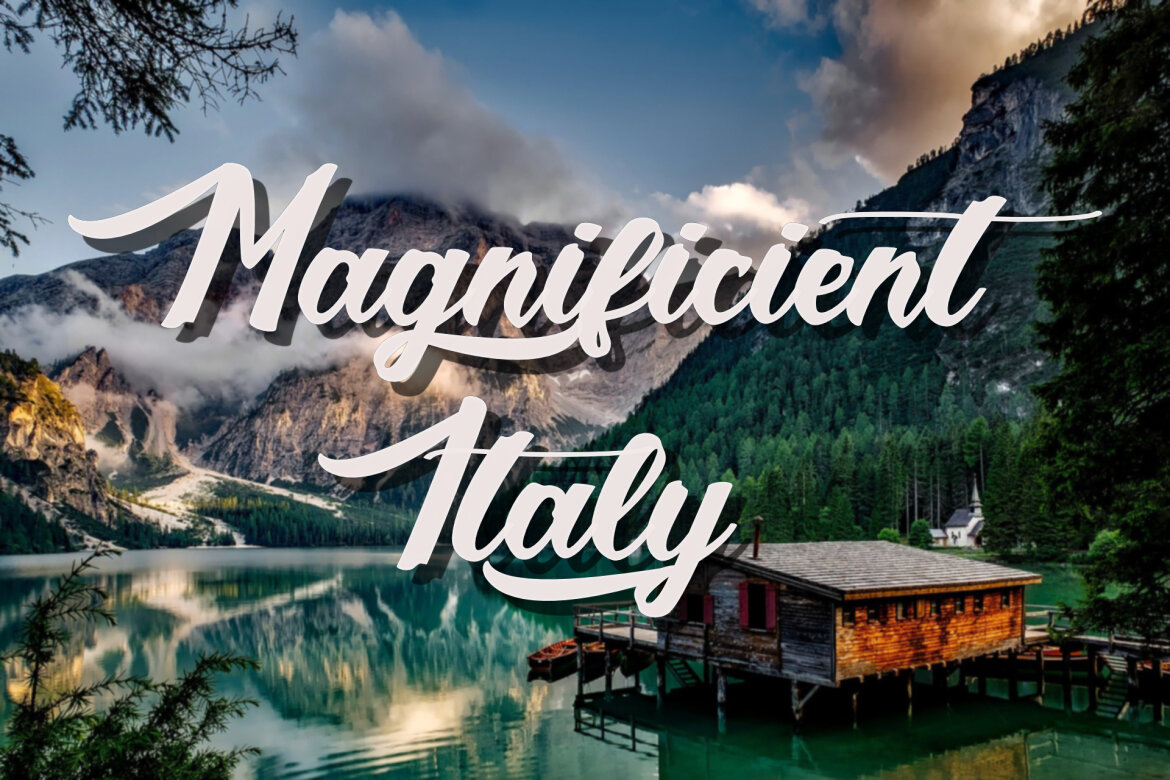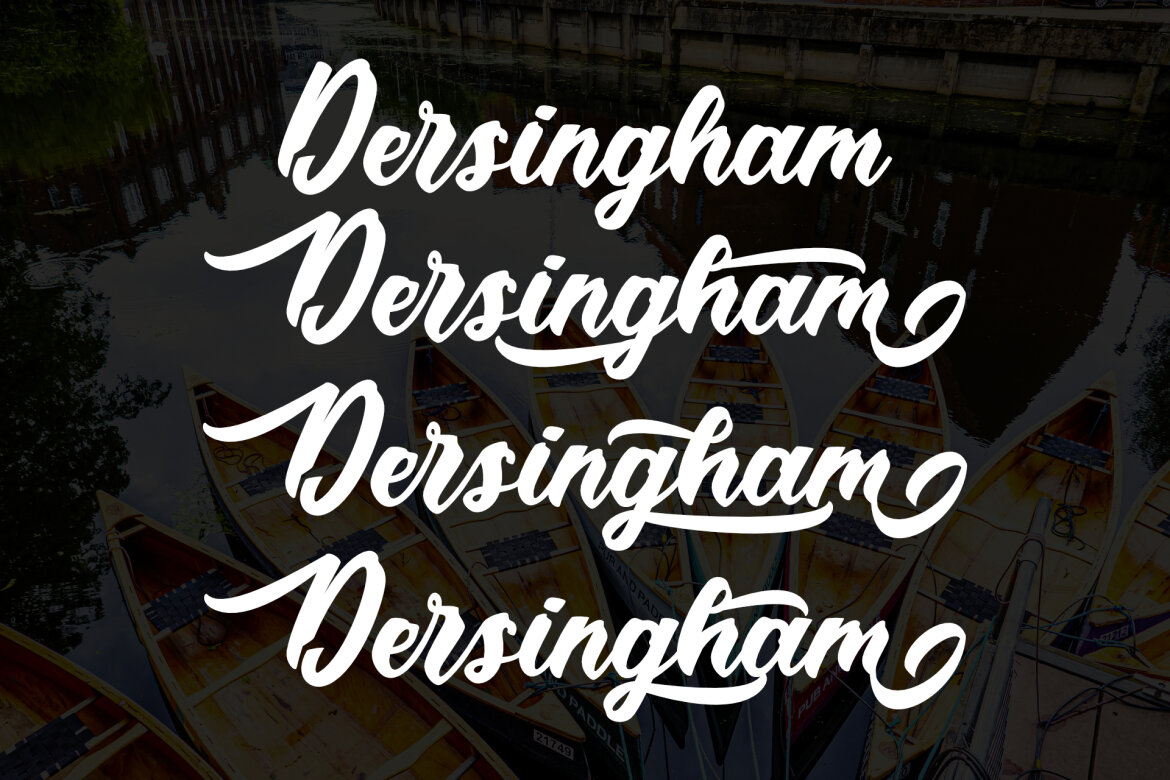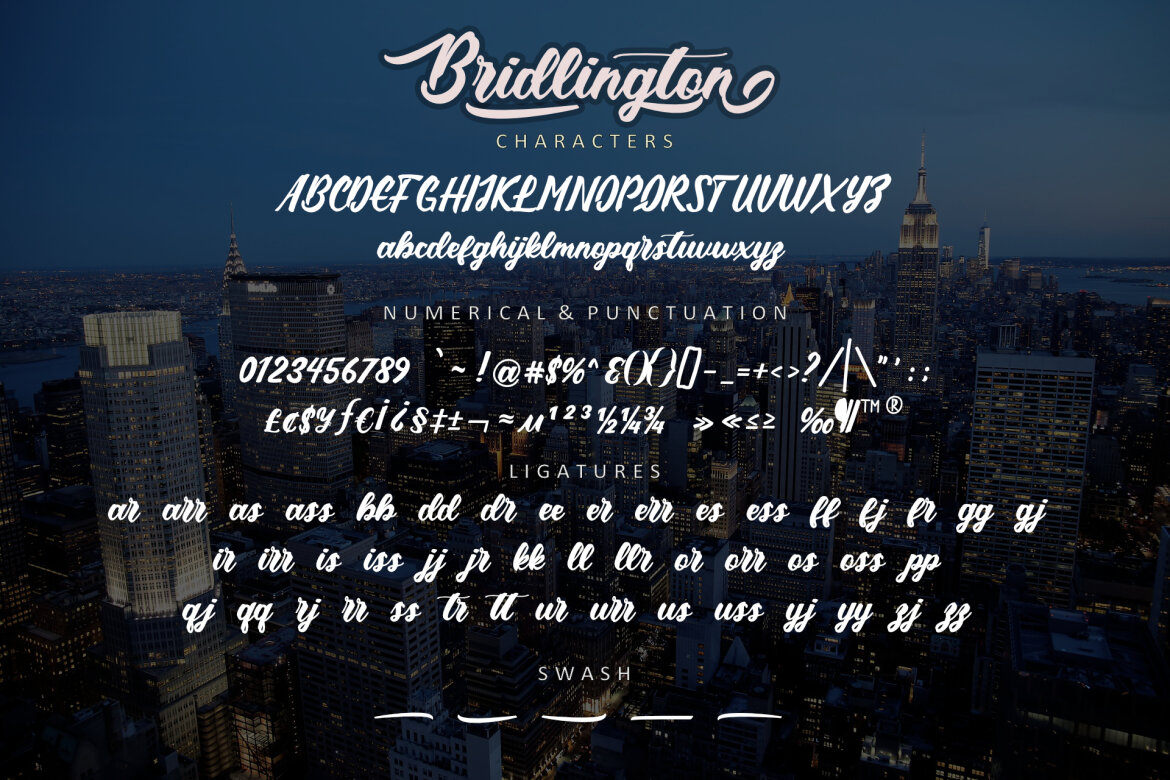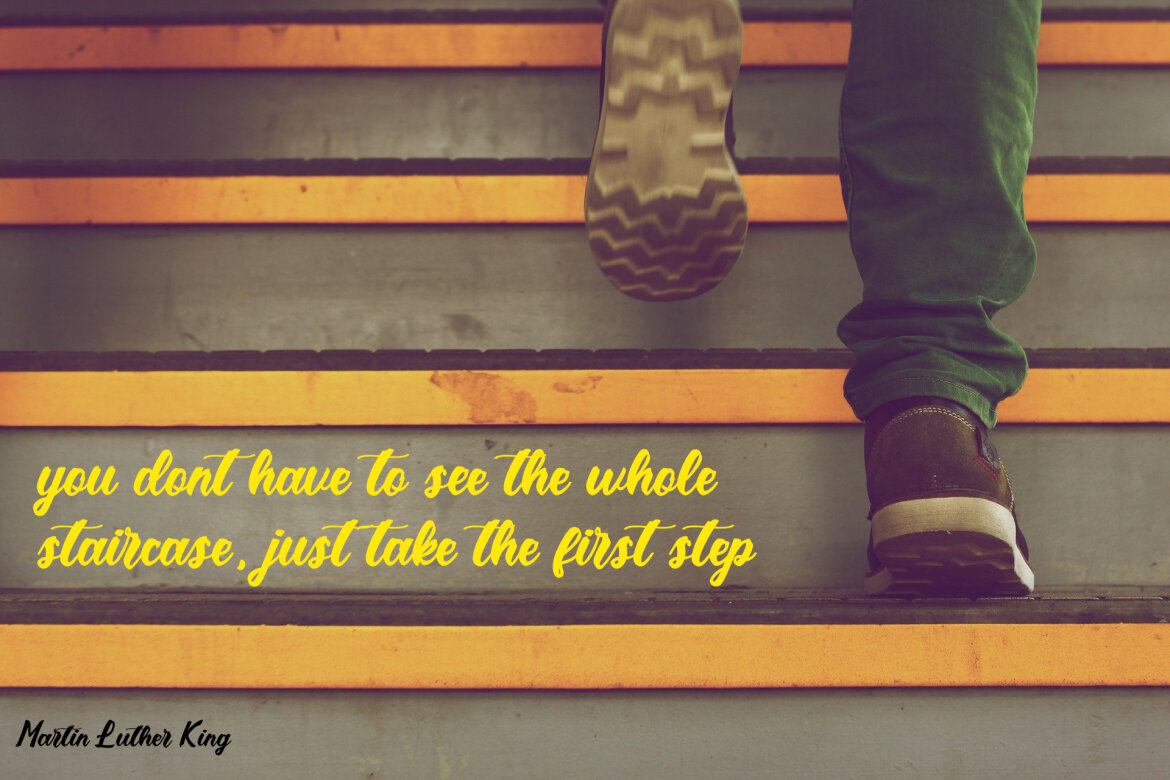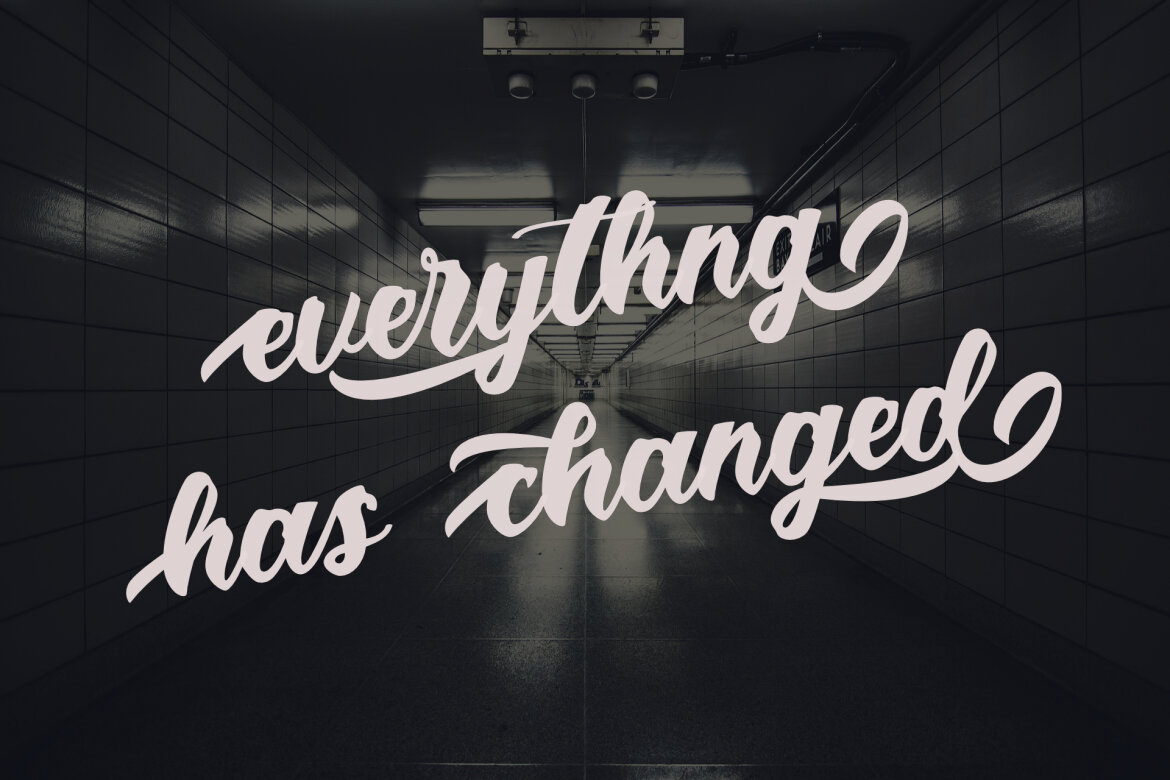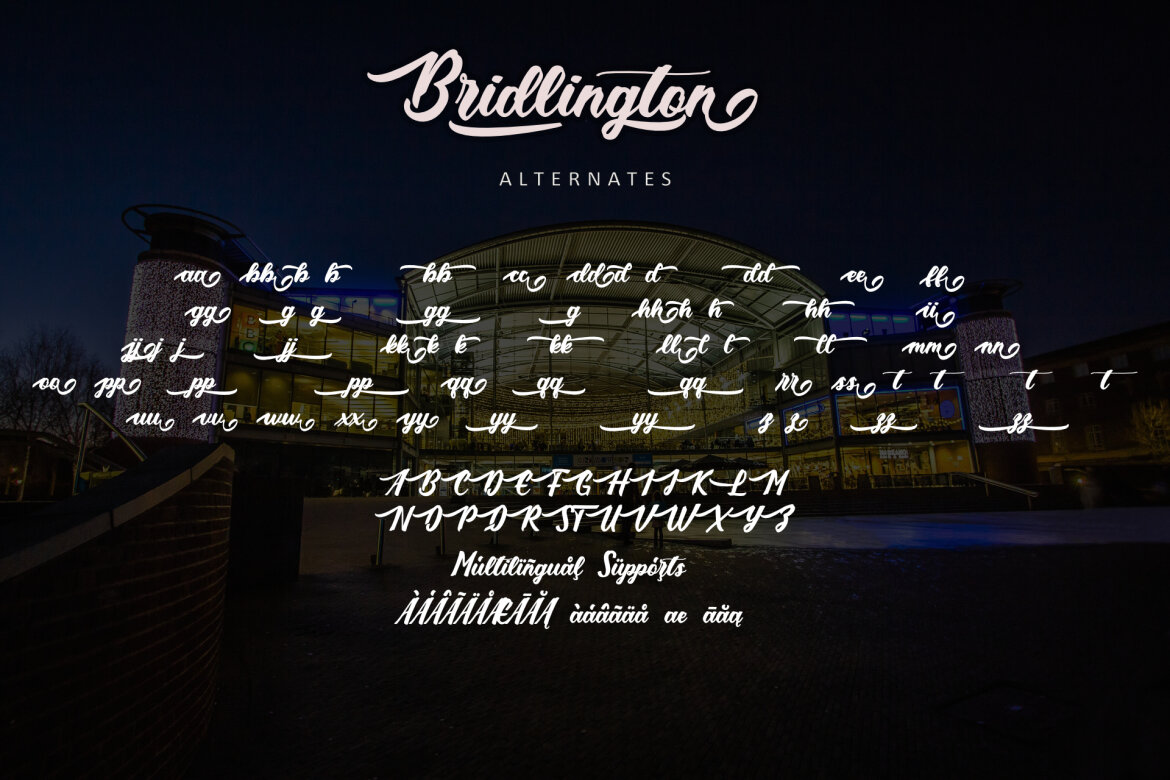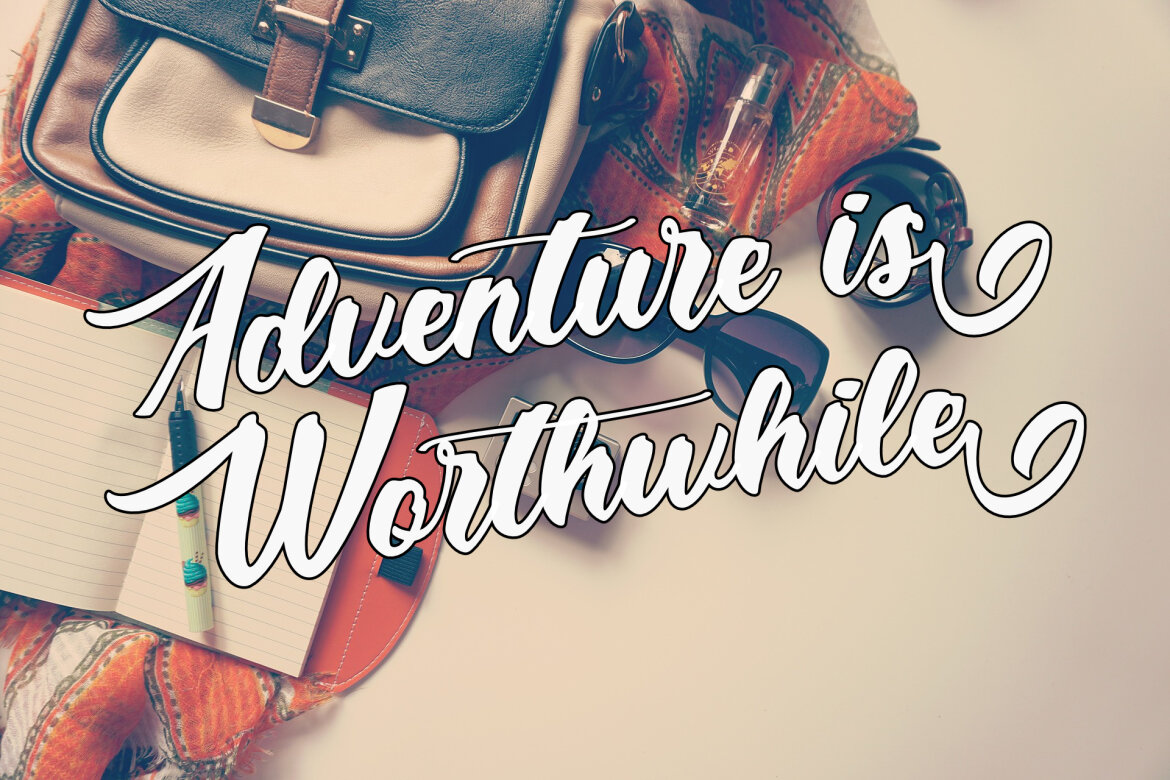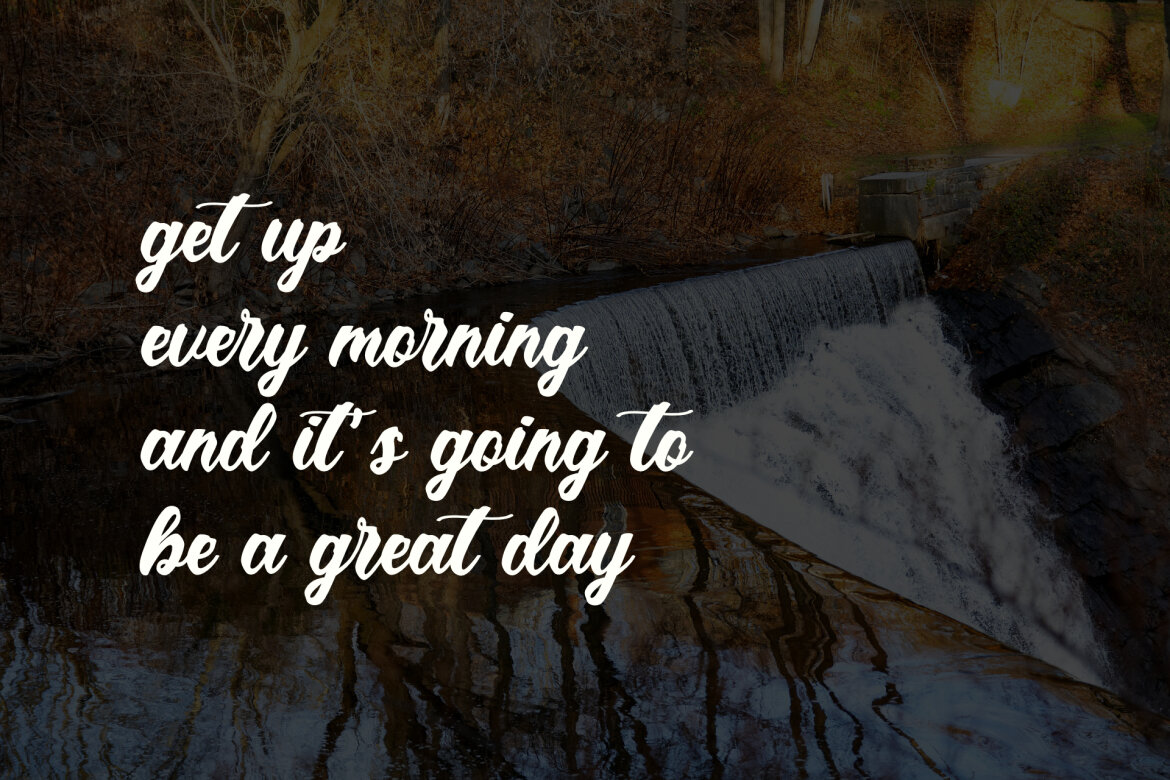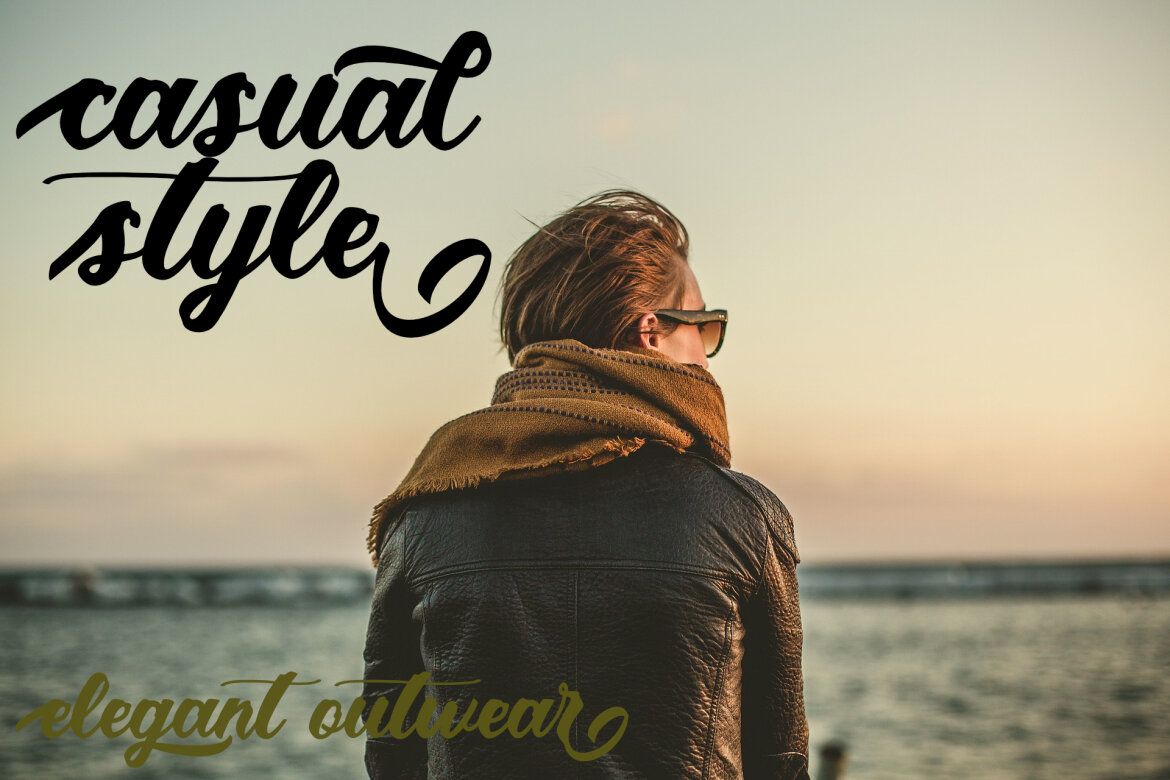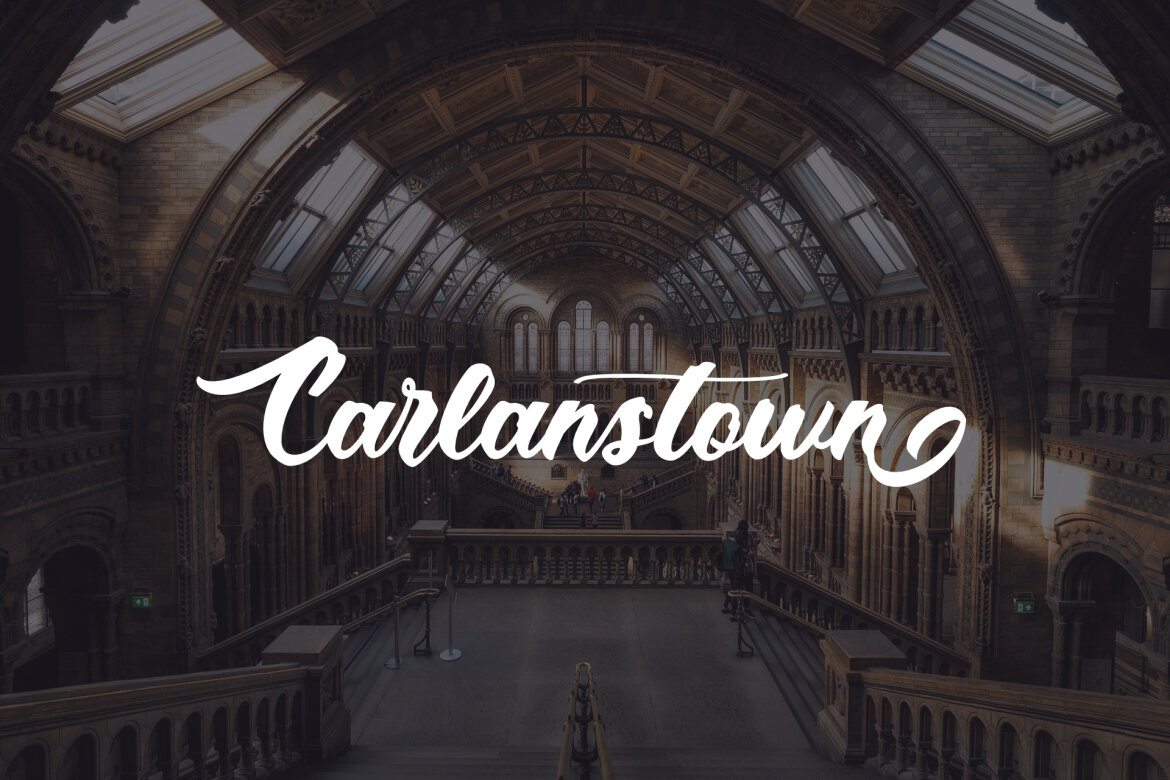
Bridlington FREE Font
Bridlington
Bridlington is a thick lettered and cursive handwritten font, crafted to give your headlines and logotype projects a stylish touch. This font reads as strong, confident, and dynamic and can add tons of nostalgic character to your designs.
• alternate